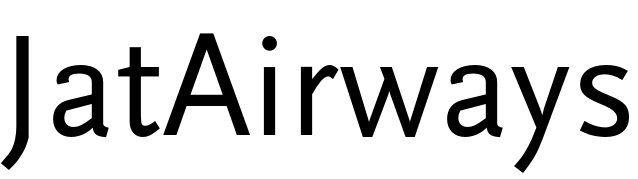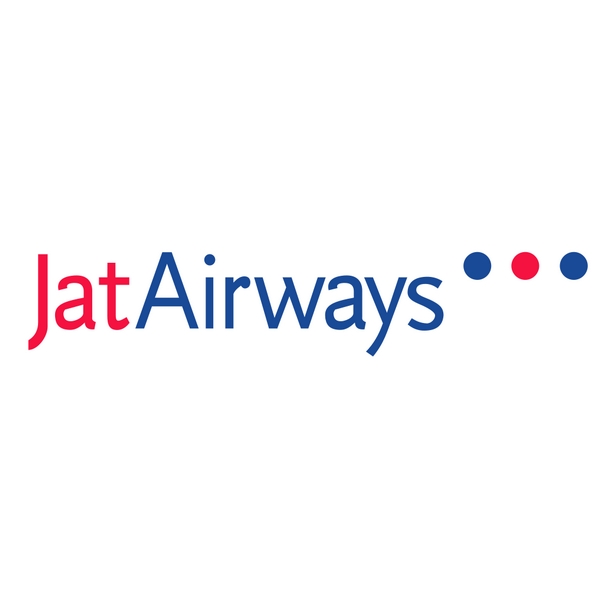
Jat Airways Font
AirlineJat Airways was the national flag carrier and the largest airline of Serbia. Jat Airways was rebranded as Air Serbia in October 2013.
The Jat Airways logo was probably created using FF Scala Sans Regular with a few minor lettering changes. It comes in 10 weights, from Light to Black in Condensed and Normal, and was created by Dutch type designer Martin Majoor exclusively for FontFont (including italics). More details about it can be found here.